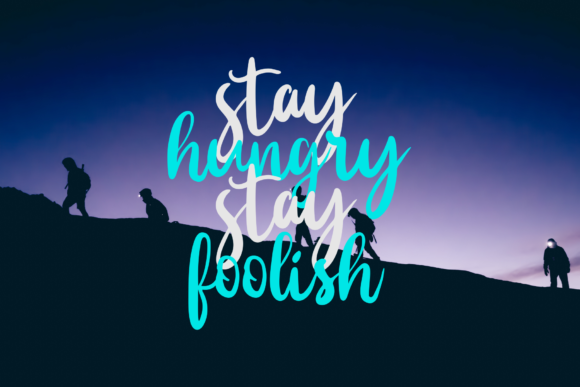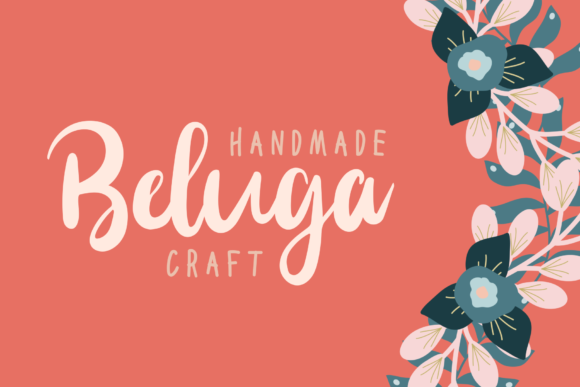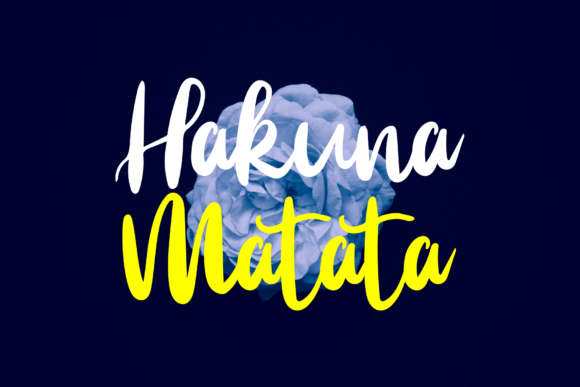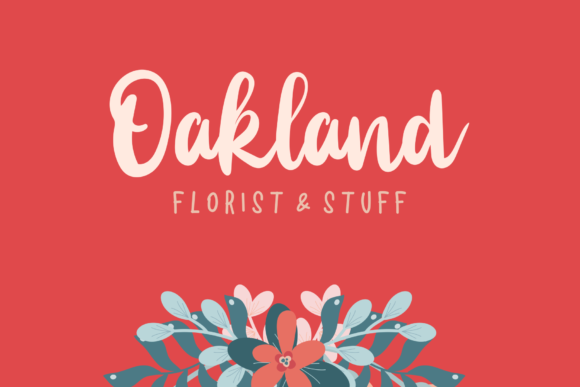
Rassain Script Font
About Rassain Script Font
The Rassain is a beautiful handmade script. it has an organic flow which is perfect for every design that needs a smooth typeface.